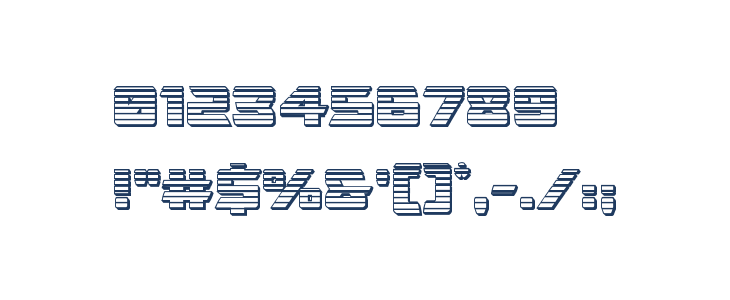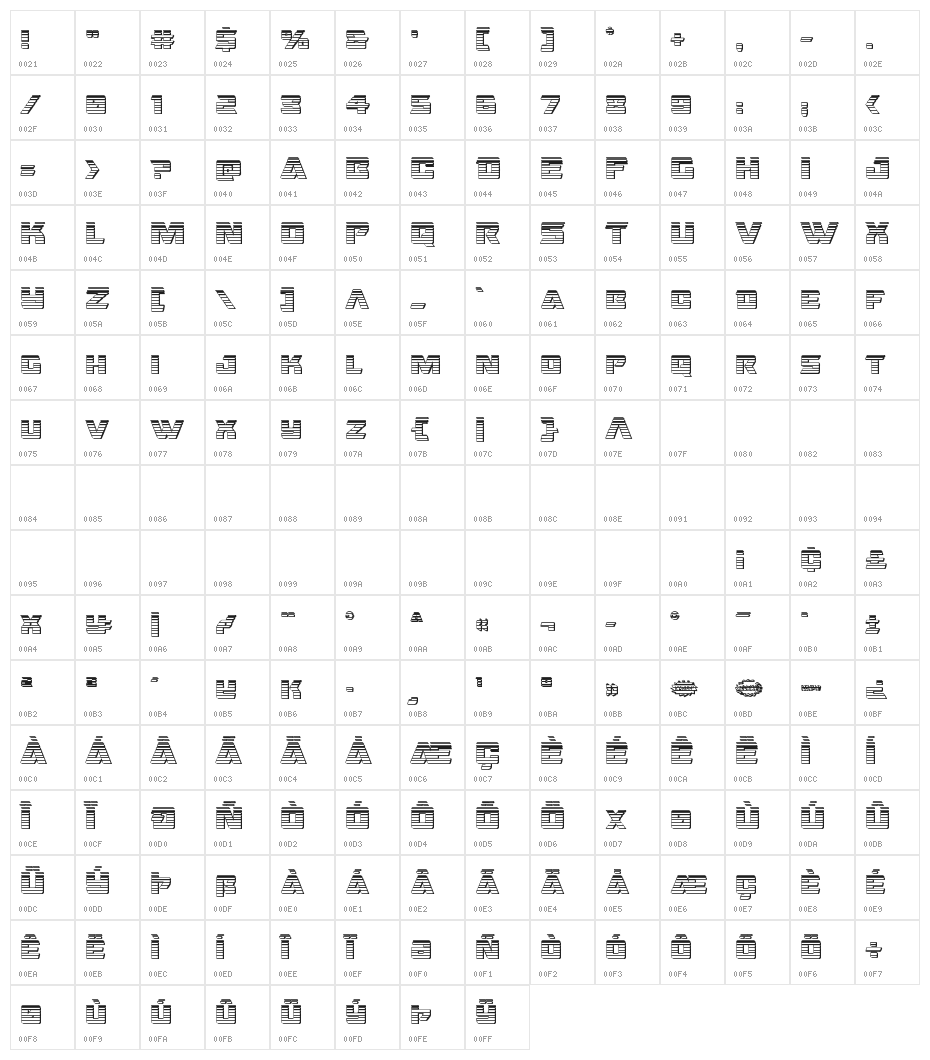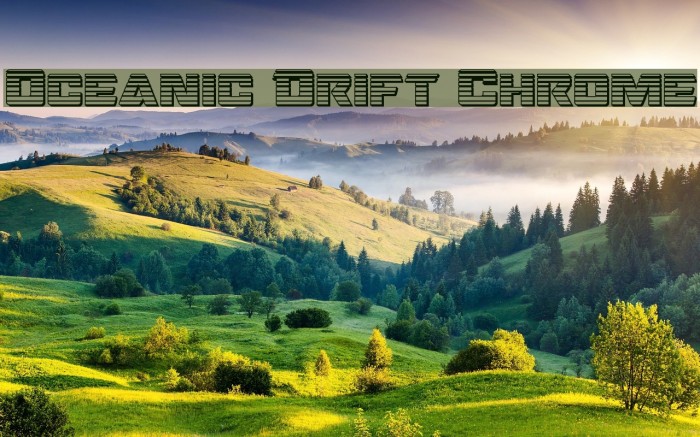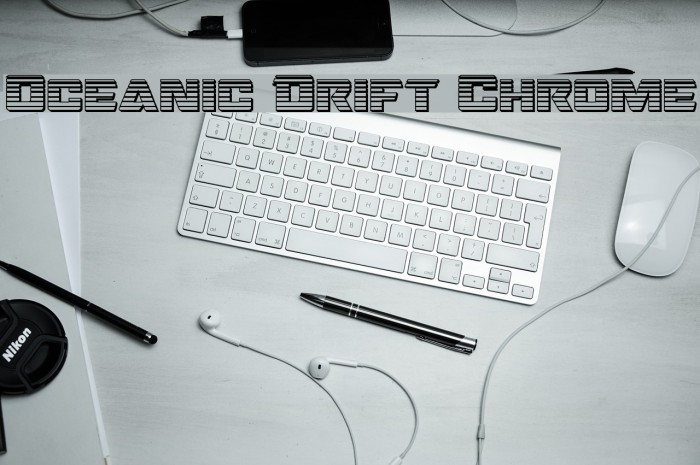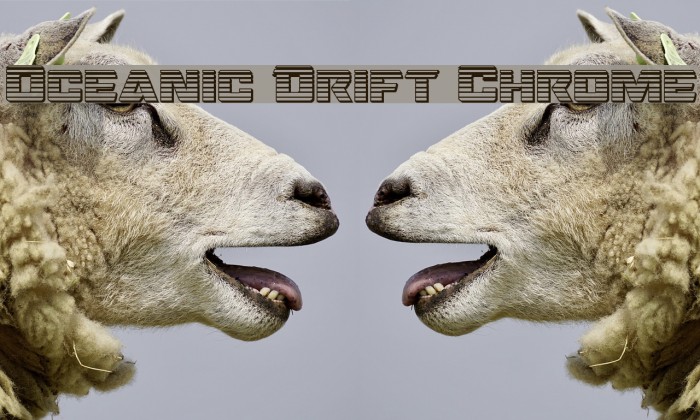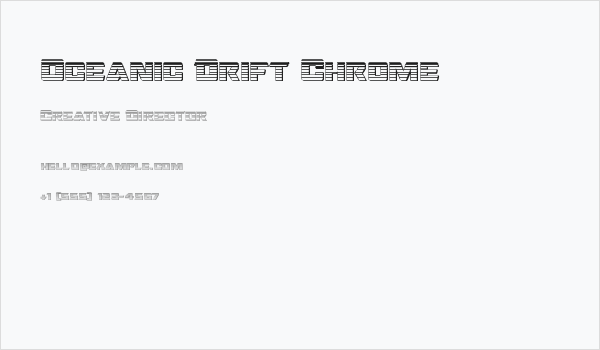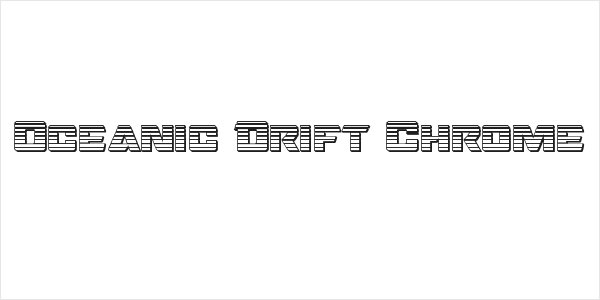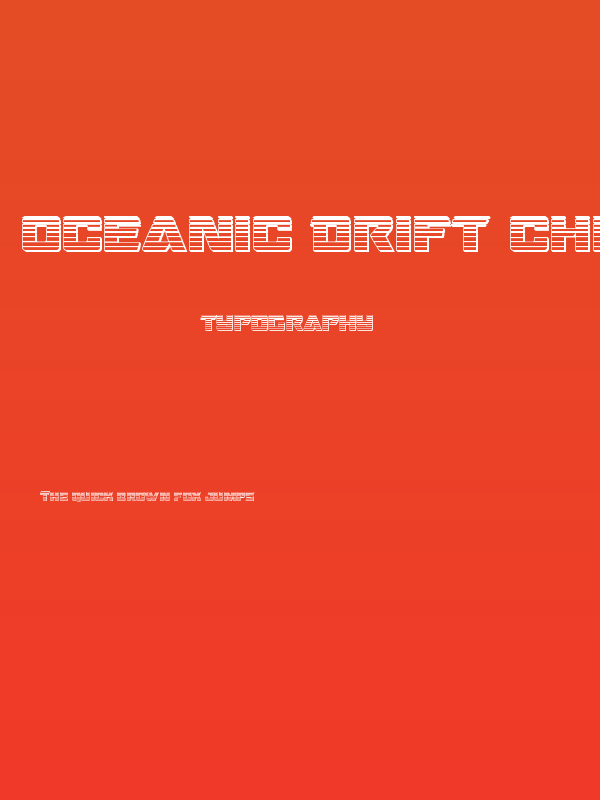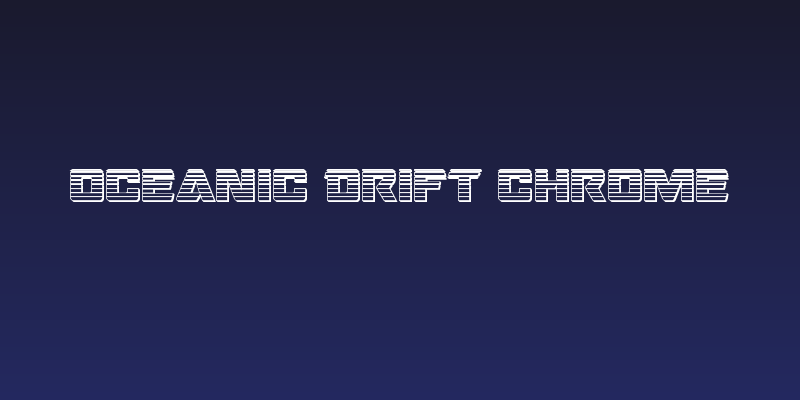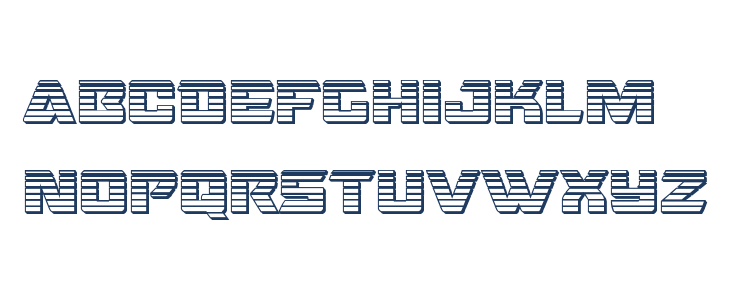
Oceanic Drift Chrome Font
Oceanic Drift Chrome Description
This font features a bold, futuristic design with a three-dimensional, chrome-like appearance. The characters are constructed with horizontal lines that create a sense of depth and movement, reminiscent of ocean waves or digital glitch effects. The uppercase and lowercase letters maintain a consistent style, with angular edges and a geometric structure. Numbers and special characters are equally stylized, ensuring a cohesive look across all text elements. This font's unique design makes it stand out, ideal for projects that require a modern and dynamic aesthetic.